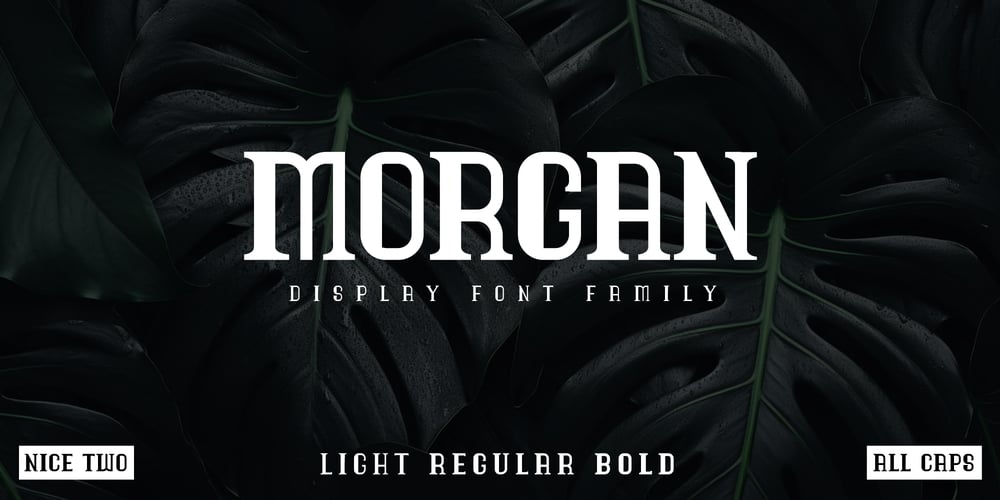
Morgan Nice Two
Morgan Nice Two font
Morgan Nice Two Font Family was designed by Agustian Eko Saputro, Aprilia Nurina Putri and published by Mightyfire. Morgan Nice Two contains 3 styles and family package options. Hello, Morgan Nice Two is here.This font is inspired from our previous font, Nice One.In Morgan Nice Two we have three versions: light, regular and bold. It has modern and strong looks with a little decoration on it.We hope you enjoy in using Morgan Nice Two! 🙂